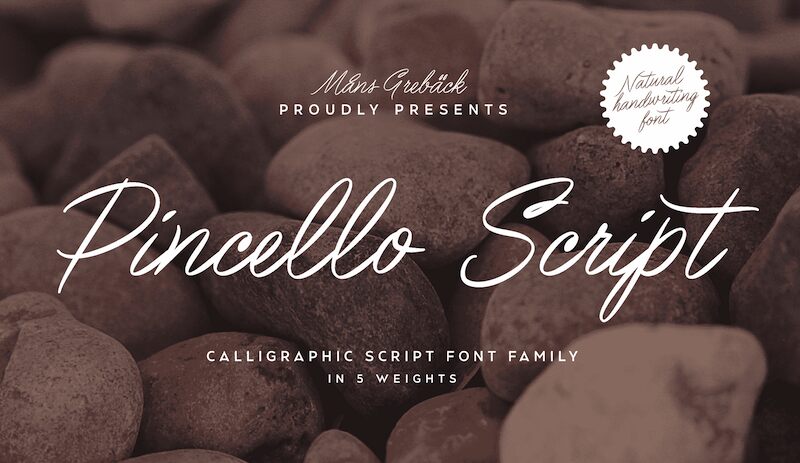
Pincello Script, created by renowned font designer Mans Greback, is a stunning semi-light handwritten typeface that boasts a unique charm and elegance. Its semi-condensed width makes it perfect for projects where space is at a premium, such as business cards and flyers. With its flowing curves and graceful lines, Pincello Script can also add a touch of sophistication to wedding invitations or product packaging. Whether you're creating branding materials for your small business or designing a greeting card for your loved ones, this versatile font is sure to make your project stand out from the crowd.
Pincello Script is a calligraphic masterpiece that skillfully blends the art of brush painting and handwriting to create a truly charming and captivating font. Its cursive, painted letterforms bring a touch of elegance and personality to your creative projects.